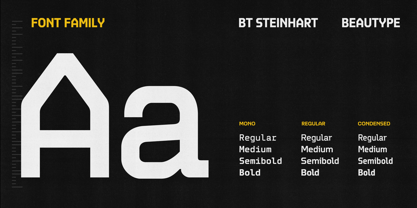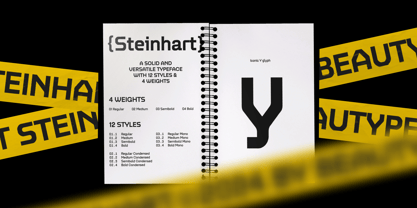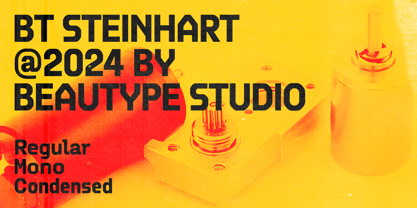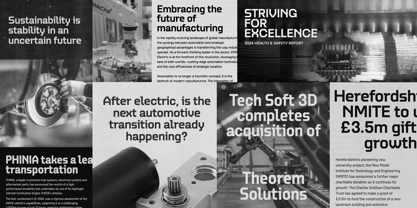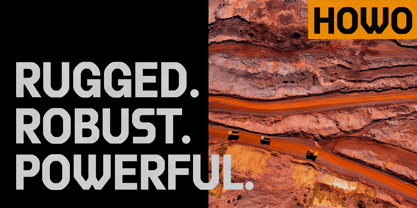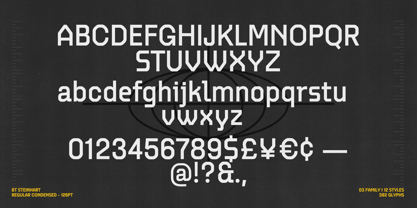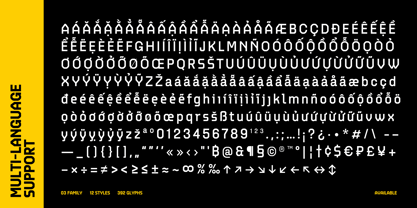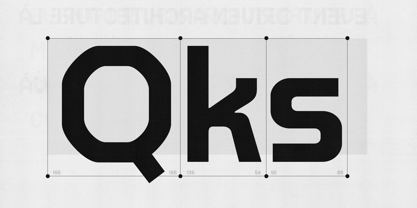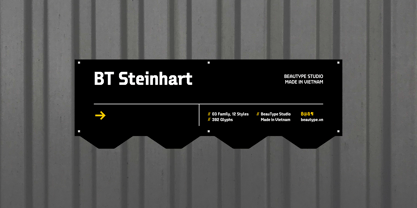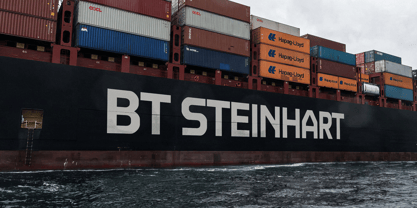
BT Steinhart
by BeauType
The BT Steinhart Font Family was designed by and published by BeauType. BT Steinhart contains 12 styles and family package options. More about this family
BT Steinhart is a versatile typeface that captures the essence of industrial design. Its bold, angular forms and mechanical aesthetic evoke feelings of strength, reliability, and precision. Whether used for headlines, body copy, or branding, this typeface adds a touch of rugged sophistication to any project..
BeauType, a Vietnamese type foundry under Beau Agency, is dedicated to crafting elegant and functional typefaces. They delve into typographic research and offer a range of type-related services. Their fonts are crafted to enhance digital and print designs, catering to diverse branding and creative needs. BeauType's commitment to quality and innovation makes them a leading voice in the Vietnamese type design scene.